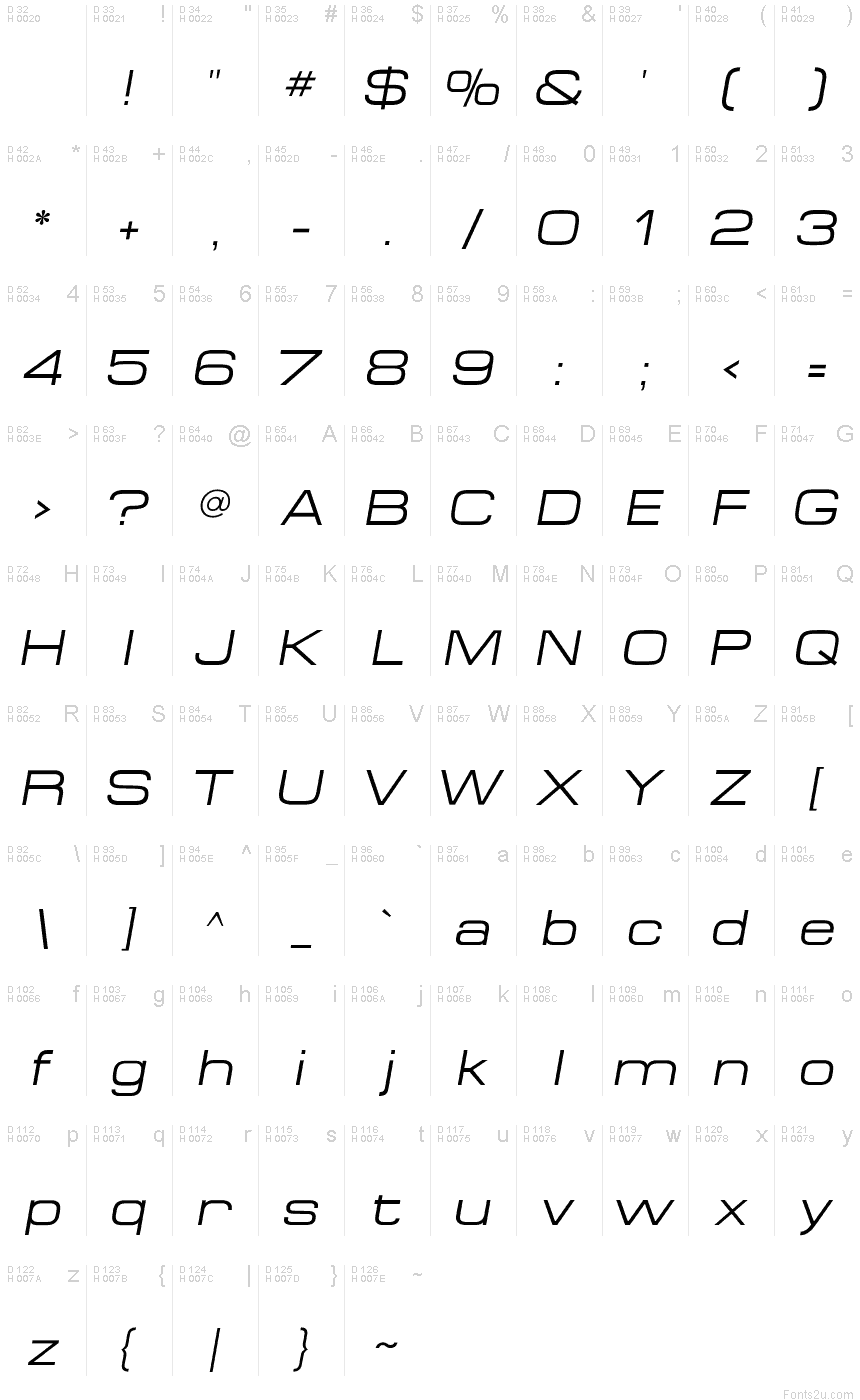
MicroExtendFLF-Italic
MicroExtendFLF Italic by Richard A. Ware is a free extended geometric sans serif with a pronounced forward slant. Broad, rounded letterforms run on near-even strokes, interrupted by sharp diagonals that keep the design taut.
Its retro-futurist styling suits science fiction posters and electronic music artwork, where speed and technology are central themes. It also fits racing game interfaces. For product branding, the stretched forms suggest streamlined machines and early digital hardware.